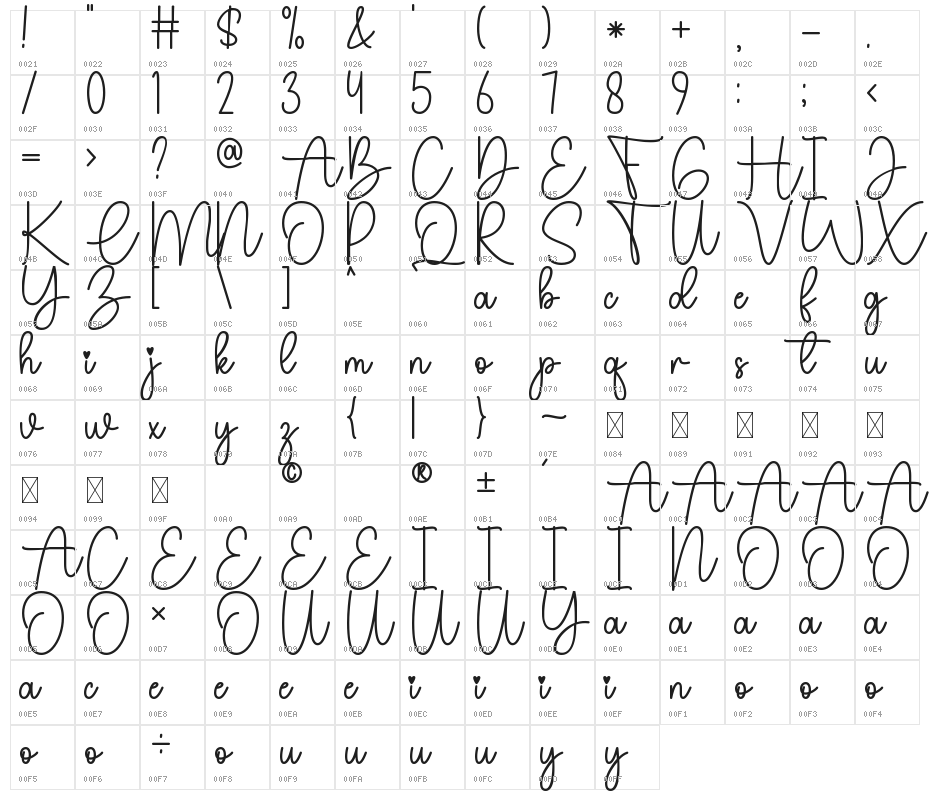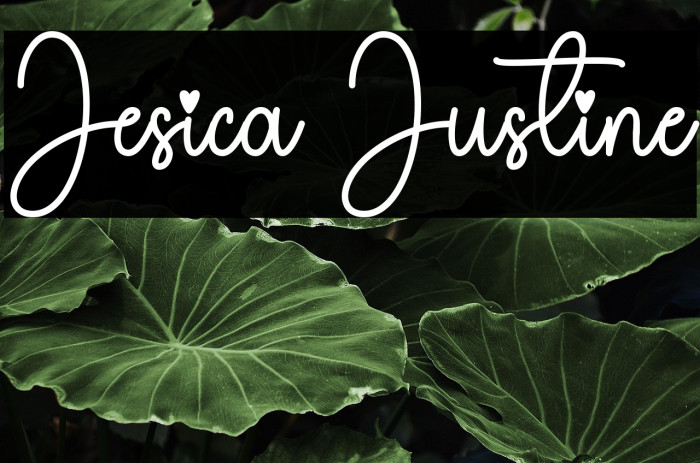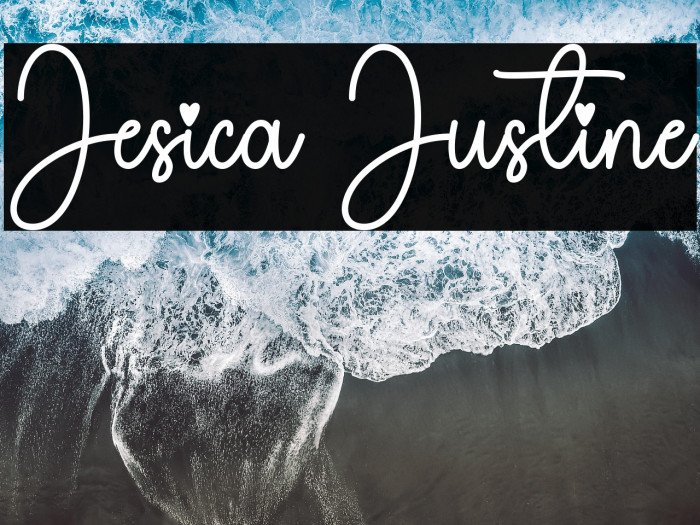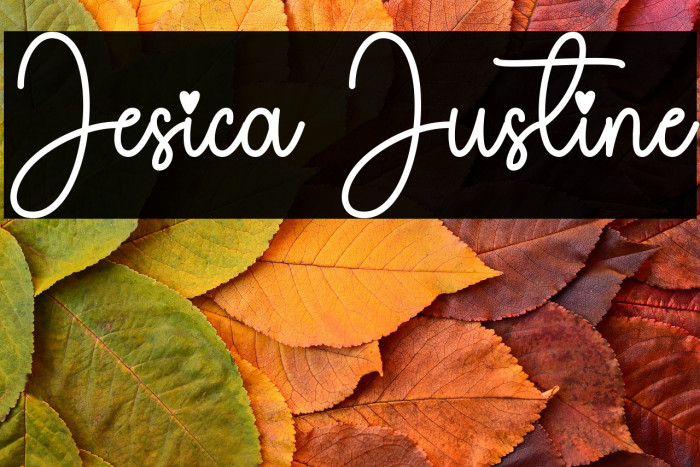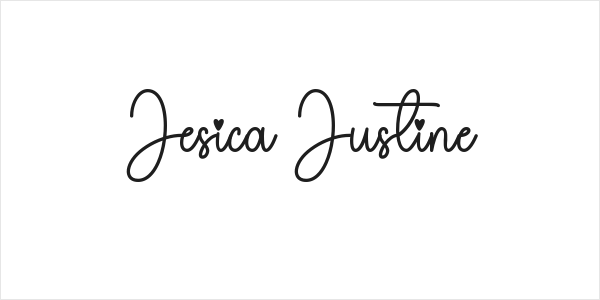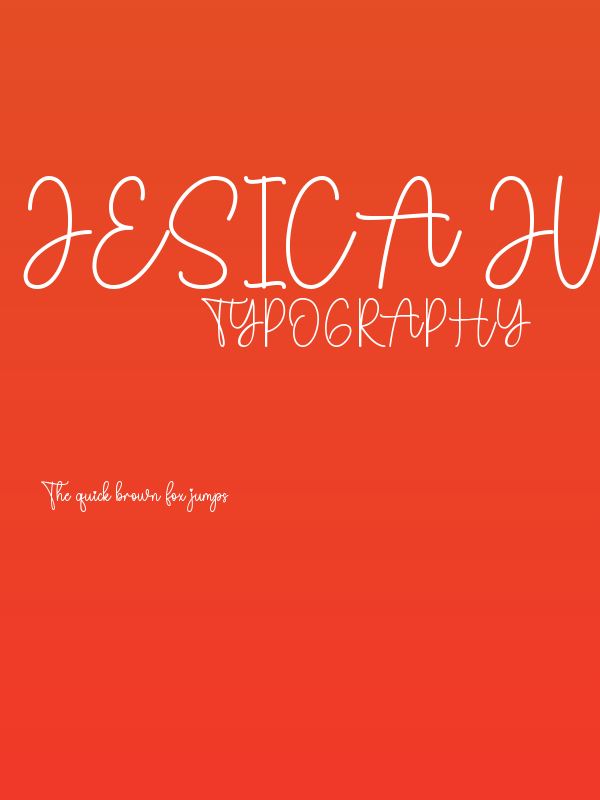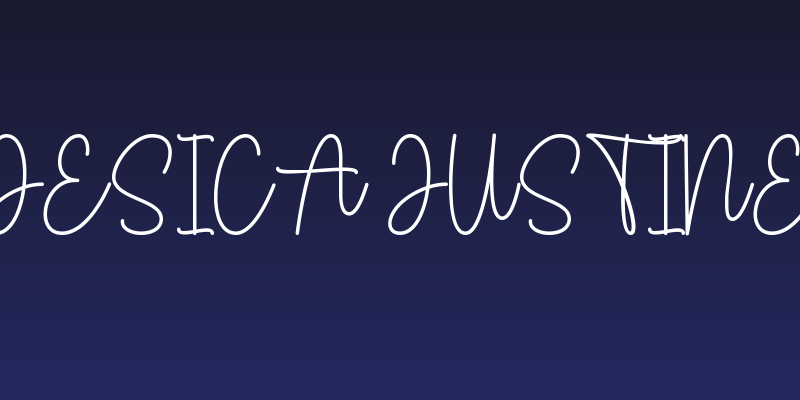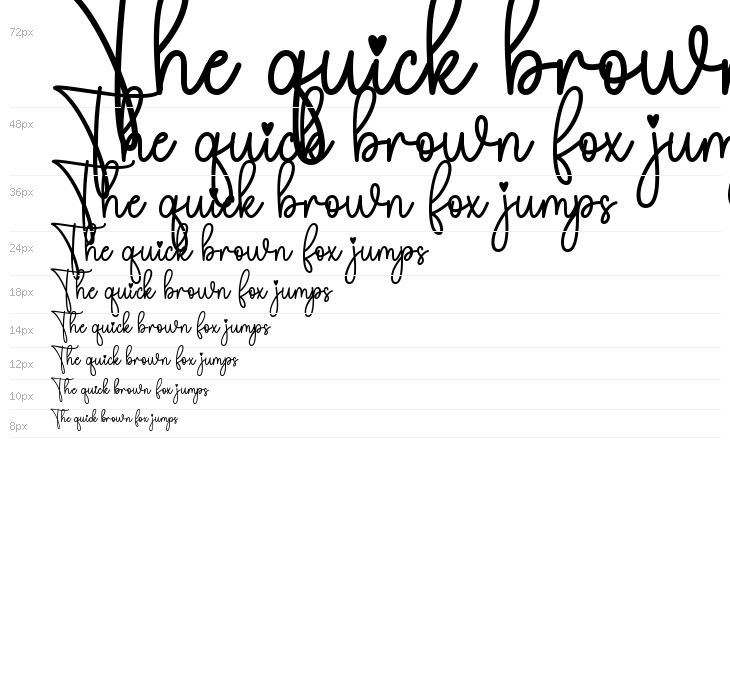
Jesica Justine Font
Jesica Justine Description
This font features a playful and whimsical handwritten style, characterized by its flowing, cursive-like uppercase and lowercase letters. The uppercase letters have a unique, airy quality with loops and curves that give them a lively appearance. The lowercase letters are more compact, with some letters featuring charming embellishments like hearts. The numerals are consistent with the overall style, maintaining the playful and informal feel. Special characters are creatively designed, adding to the font's decorative appeal. This font is perfect for projects that require a personal touch and a sense of fun.
| Use Case | Logos, Invitations, Greeting cards |
| Proposed Projects | Ideal for greeting cards, invitations, personal branding, and playful logos. |